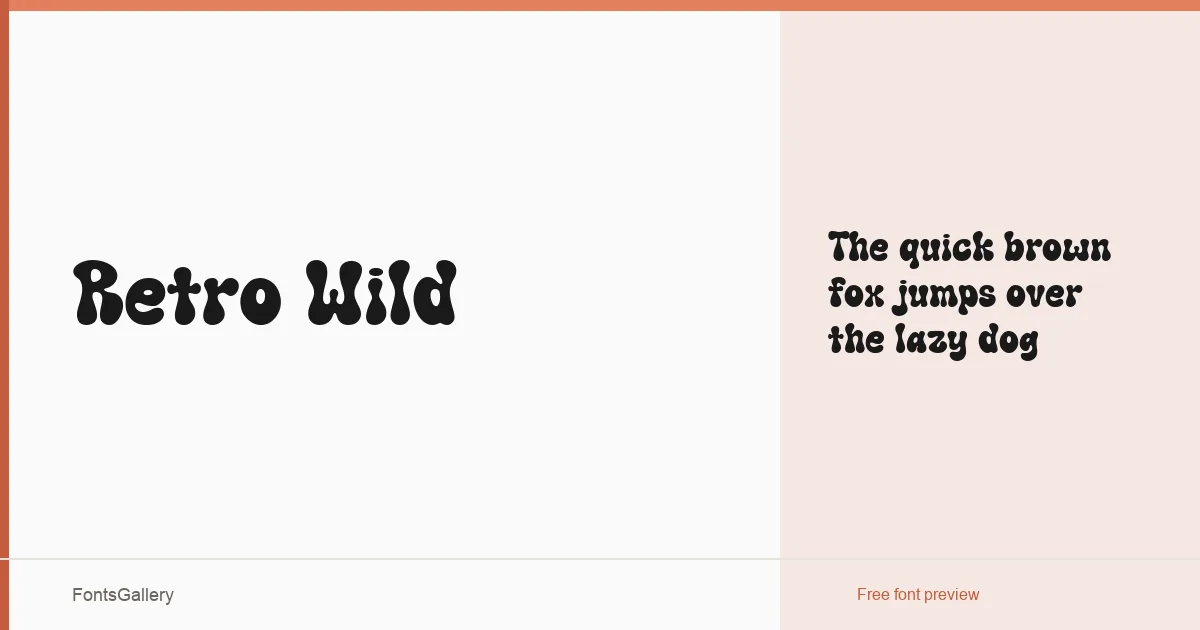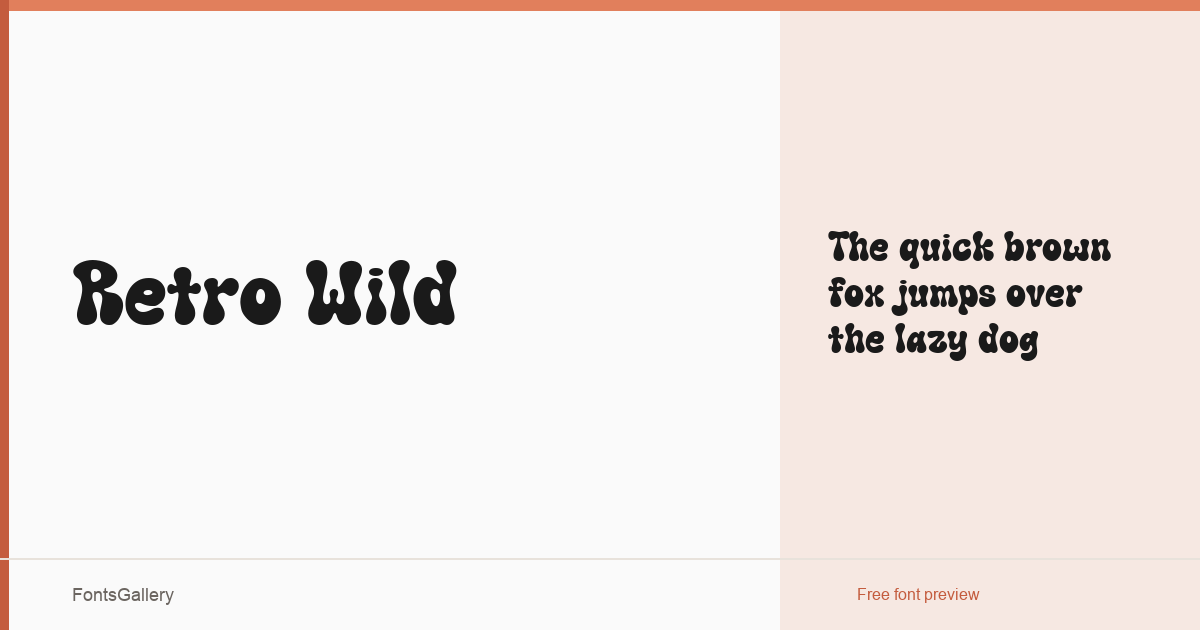
About Retro Wild Font
Retro Wild is a display typeface crafted by Keithzo, designed to capture an energetic blend of vintage charm and bold personality. With its playful and whimsical character, this font brings a lively retro aesthetic to any creative project. It is a standout choice for designers seeking to make a strong, memorable visual impression.
Retro Wild features bold, expressive letterforms that draw inspiration from vintage design eras while maintaining a fun and whimsical quality. Its display-oriented construction makes each character feel dynamic and full of personality, commanding attention on any canvas. The combination of playful details and strong weight gives it a distinctive retro flair that feels both nostalgic and fresh.
Retro Wild is ideally suited for logos, posters, branding projects, social media graphics, and t-shirt designs where a bold, eye-catching statement is desired. Its expressive style makes it particularly effective in contexts that call for a vintage or retro-inspired visual identity. For a balanced typographic pairing, consider combining Retro Wild with the clean neutrality of Helvetica or the complementary character of Aresink.